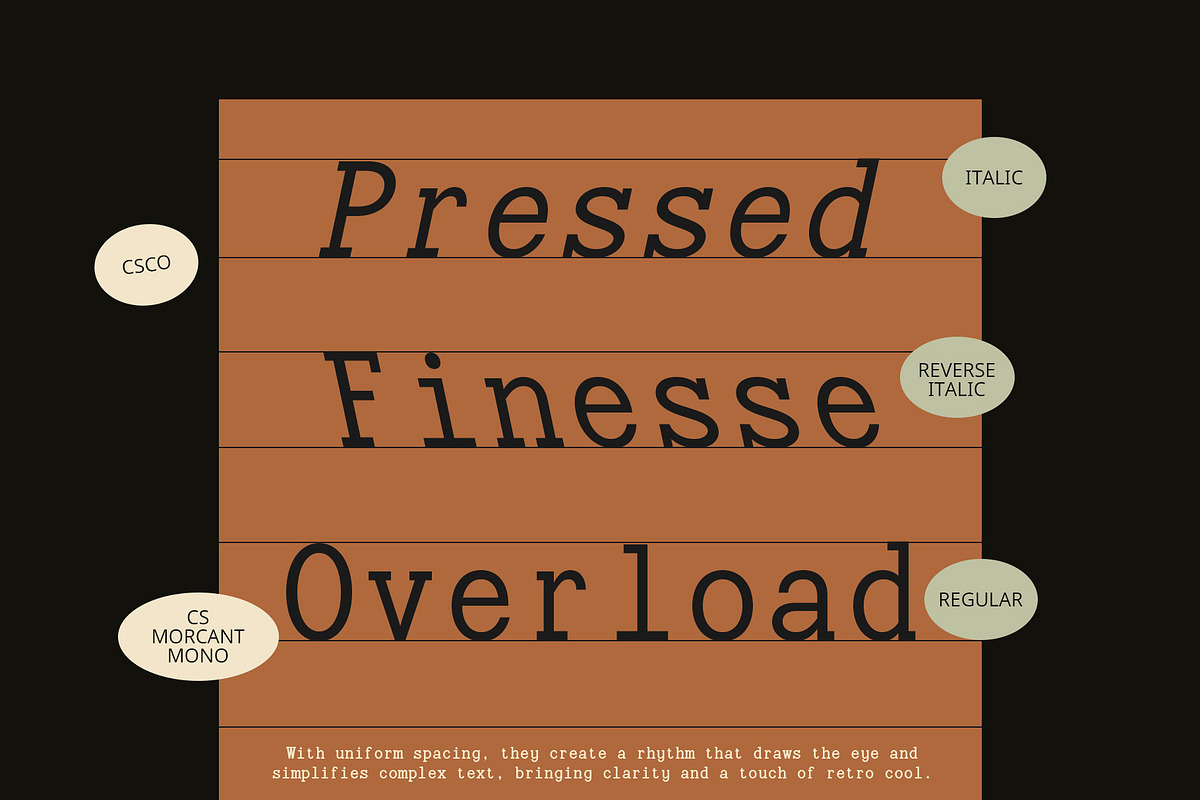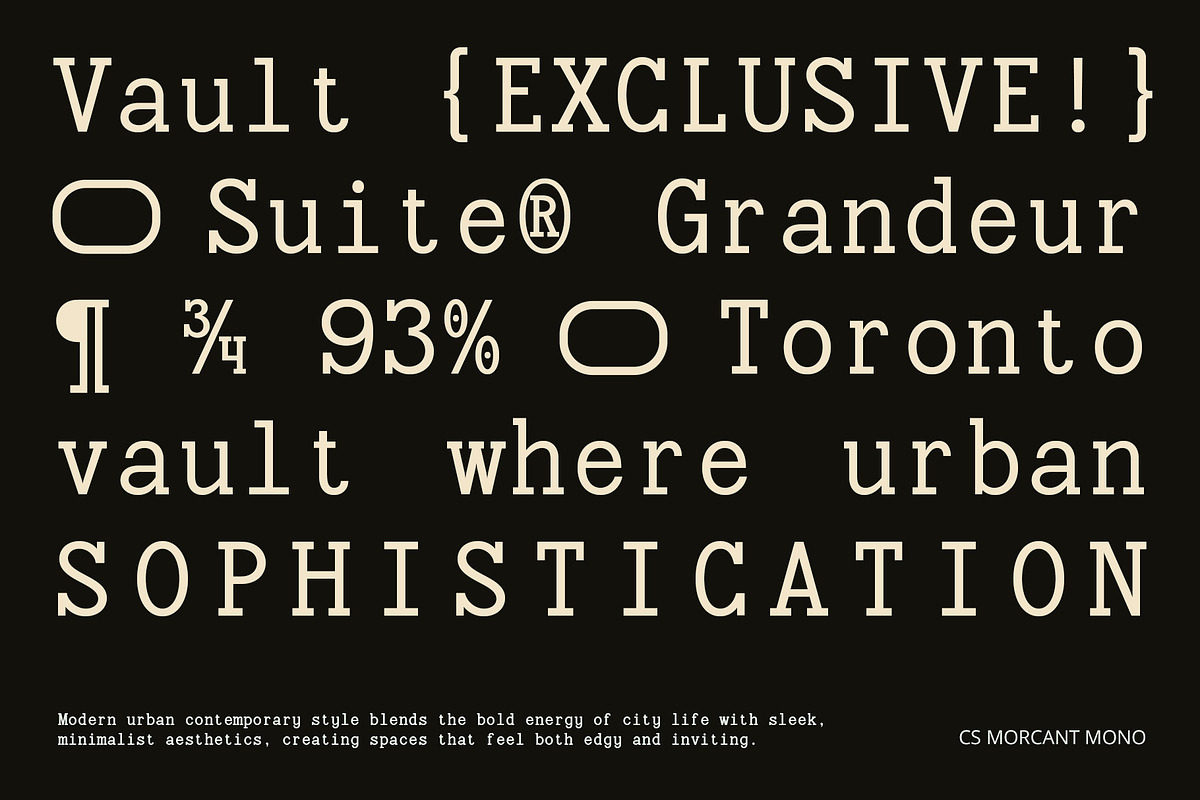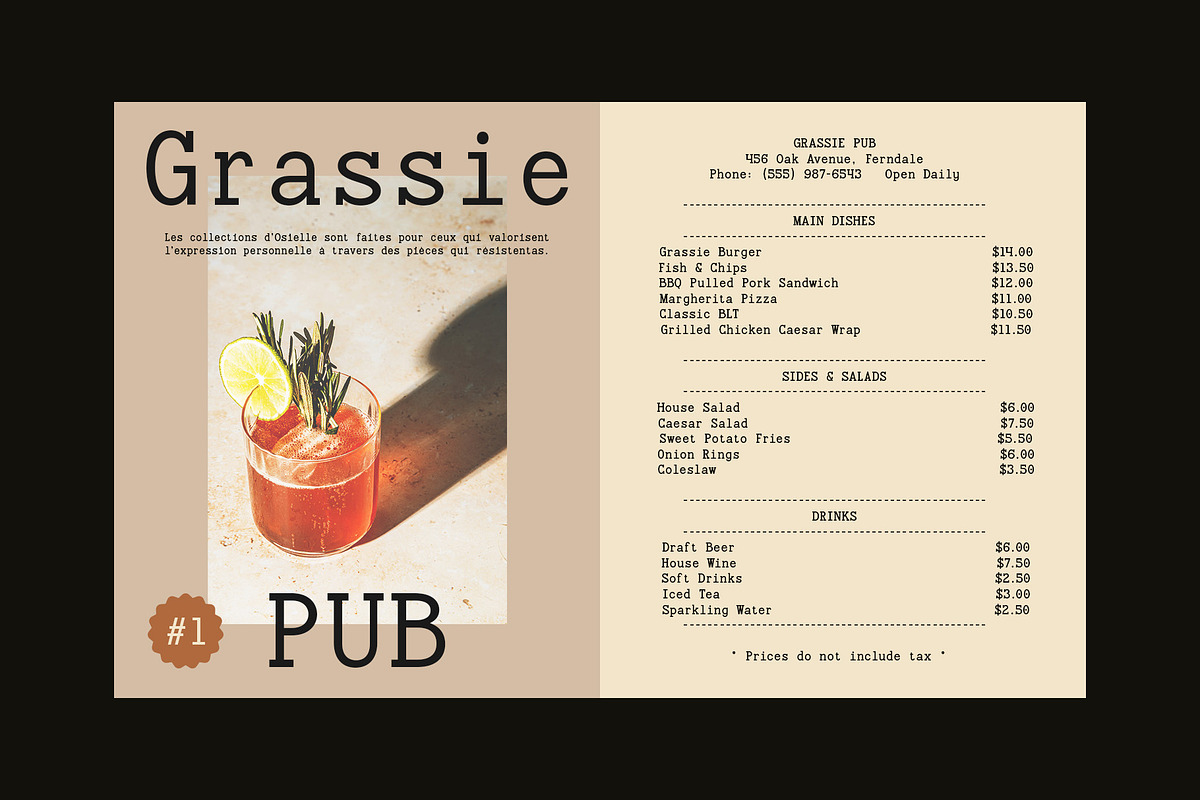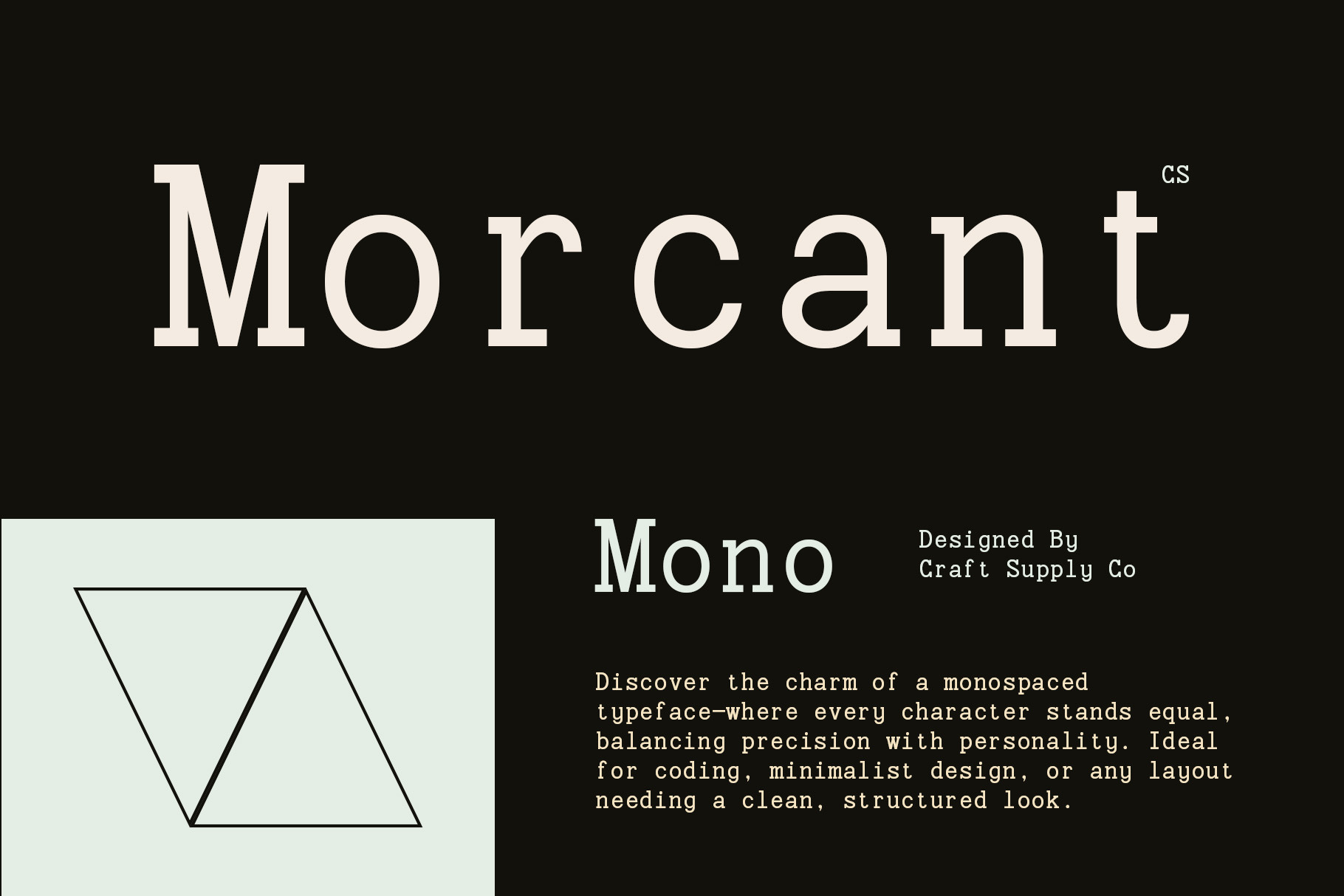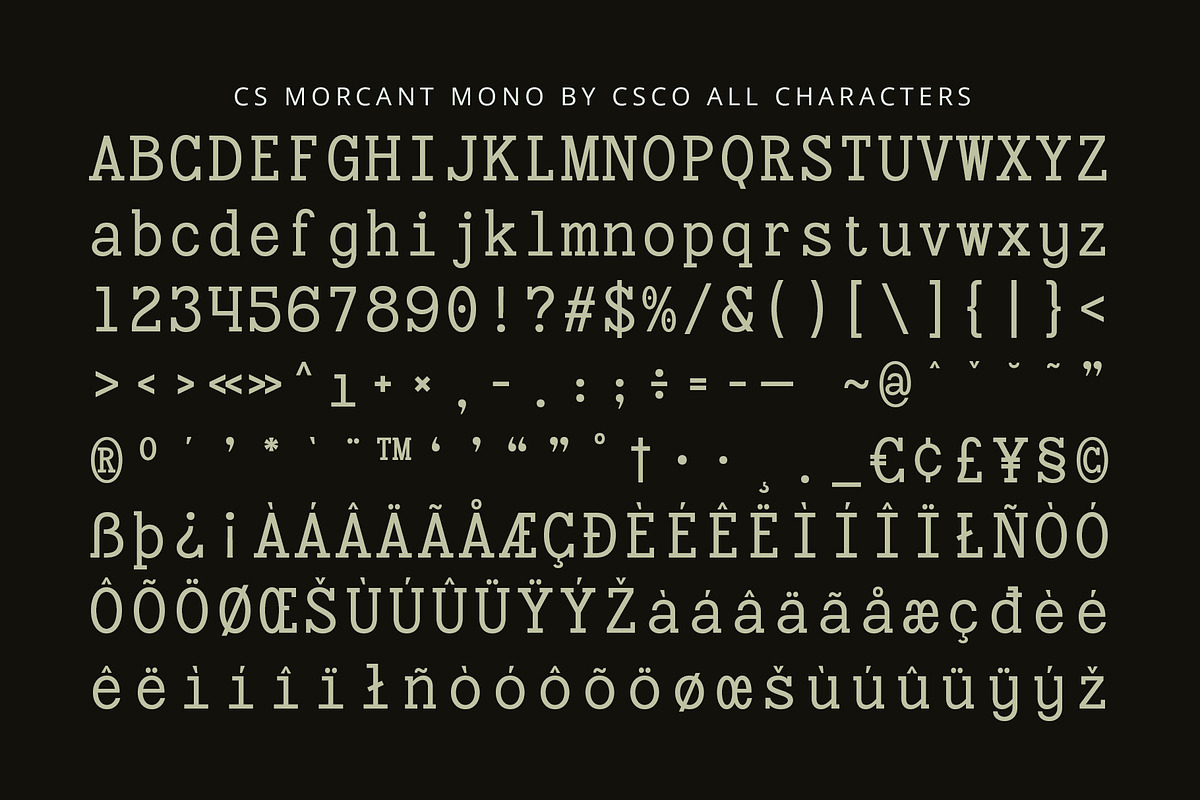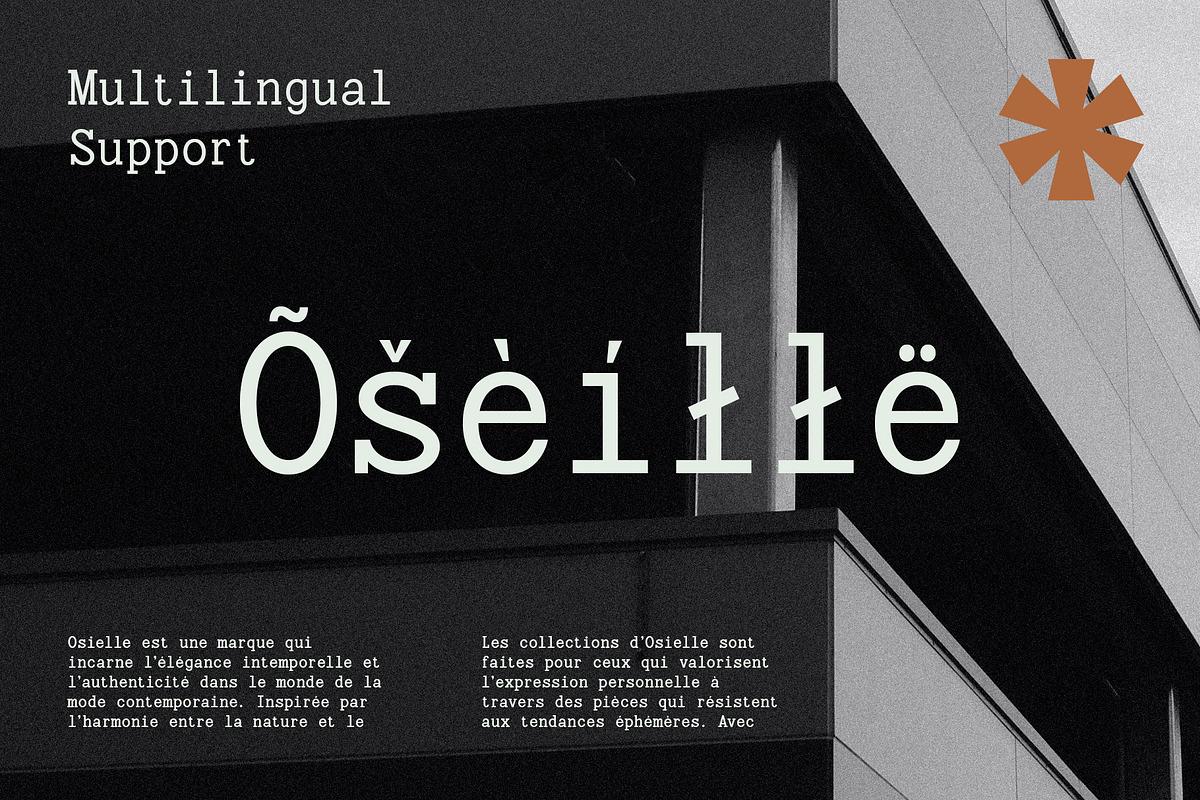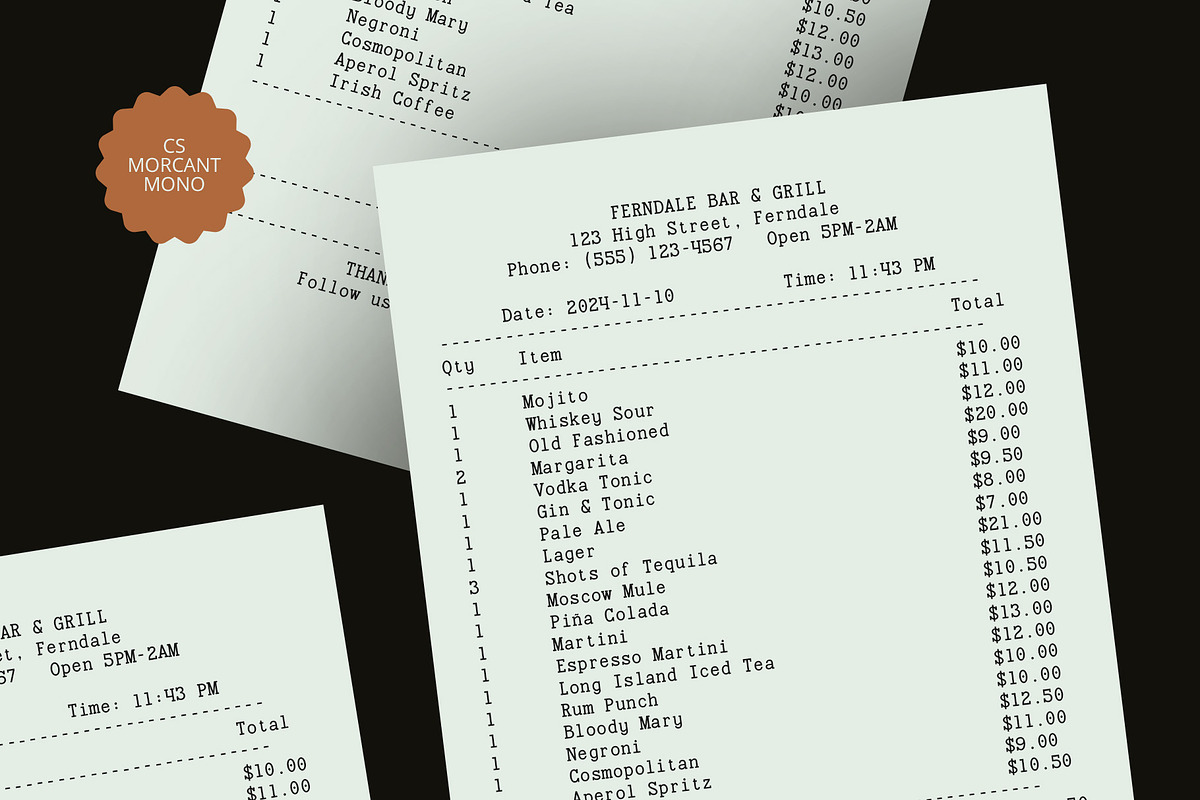
CS Morcant Mono – Monospaced Font
CS Morcant Mono – Monospaced Font: Modern Elegance with Precision
Monospaced Serif with Structured Uniformity CS Morcant Mono is a modern monospaced serif font that seamlessly combines the uniformity of a monospaced design with the sophistication of serifs. Its consistent letter spacing ensures clarity and readability, making it an excellent choice for environments where precision and legibility are key. The clean, contemporary structure adds a professional touch, while the serif details introduce an elegant flair, providing a refined look that’s both functional and stylish.
Ideal for Coding, Technical Documents, and Editorials Designed with functionality in mind, CS Morcant Mono excels in environments that demand clear and organized text. Its monospaced form ensures consistent alignment, which is ideal for coding and technical documents where precision is paramount. Additionally, its refined serif details give it an elevated appearance, making it equally suitable for modern editorial designs and sophisticated layouts that require a professional and clean typeface.
Contemporary Sophistication Meets Professionalism With its contemporary yet structured design, CS Morcant Mono offers both elegance and functionality. The serif details provide a touch of class, while the uniform spacing promotes an orderly, clean aesthetic. This balance of modern sophistication and professional clarity makes it the ideal font for any project that needs a structured, polished look—whether it’s for technical work, formal publications, or stylish editorial content.